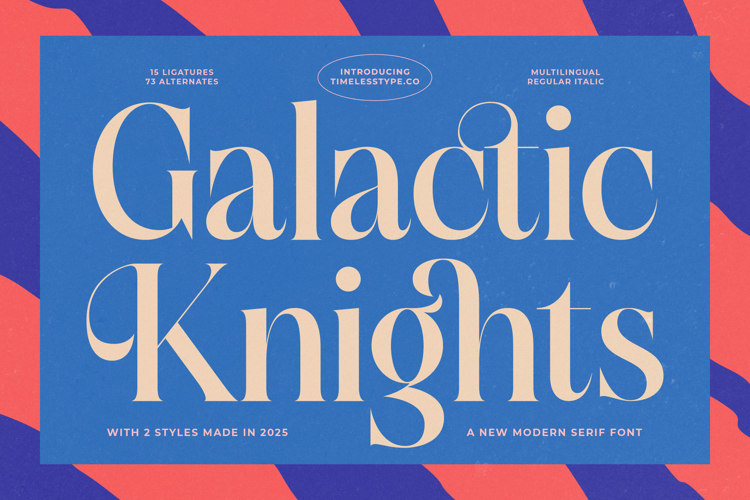
Galactic Knights - Modern Serif Font
Galactic Knights - Modern Serif Font elevates design with its striking blend of traditional elegance and contemporary finesse. This exquisite typeface features a captivating play of high-contrast strokes and gracefully tapered serifs, exuding an air of understated luxury and sophisticated charm. Its balanced letterforms ensure readability while delivering a powerful visual impact, perfect for making a memorable statement in any project.
Unleash unparalleled creative potential with Galactic Knights - Modern Serif Font, designed for maximum flexibility and artistic expression. Featuring 15 unique ligatures and 73 stylish alternates, this font empowers designers to craft truly bespoke headlines, logos, and body text. Its extensive character set provides the tools necessary to achieve a custom-tailored look, ensuring your designs are both distinctive and polished for any creative endeavor.